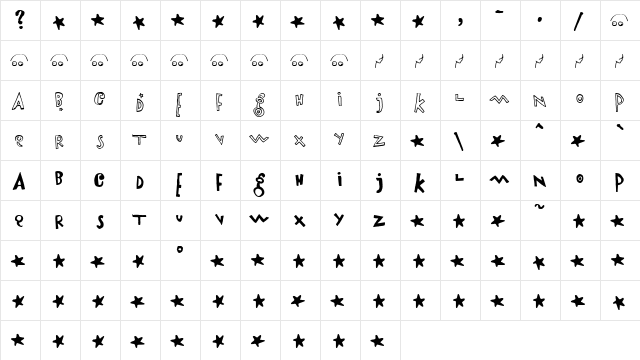
Airboy Regular
Design Context for Airboy Typeface
Airboy is a composed and adaptable typeface that performs quietly and consistently across a wide range of design contexts.